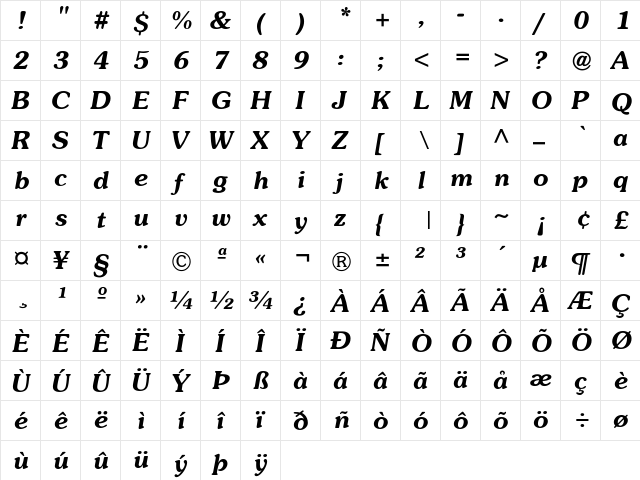
Design Context for Souvenir-DemiItalic Typeface
Souvenir-DemiItalic takes a measured approach to typography — its balanced proportions and neutral character make it a reliable workhorse for both digital and print work. The dynamic lean of this cut emphasises speed and emphasis in any layout.
Pro Tip: Try Souvenir-DemiItalic for annotation and caption copy alongside an upright companion — the contrast in angle creates a dynamic but ordered typographic system.